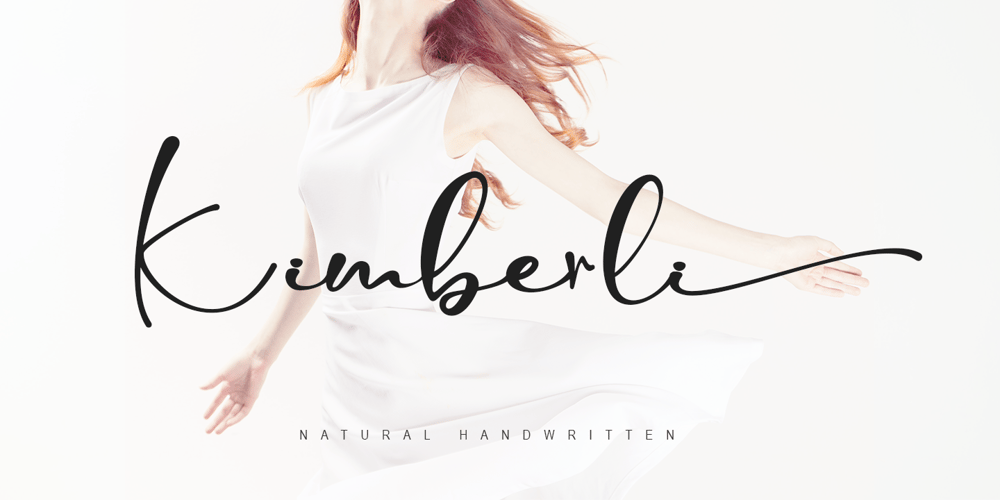
Princess Kimberli
Princess Kimberli font
Princess Kimberli Font Family was designed by Thomas Aradea and published by Letterara. Princess Kimberli contains 1 styles and family package options. Princess Kimberli is a modern handwritten font with an incredibly friendly feel. It features gorgeous swashes and ligatures that make this script incredibly versatile. Whether you’re looking for fonts for Instagram or calligraphy scripts for DIY projects, Kimberli will turn any creative idea into a true piece of art! This font is PUA encoded which means you can access all of the amazing glyphs and swashes with ease! It also features a wealth of special features including alternate glyphs and ligatures.